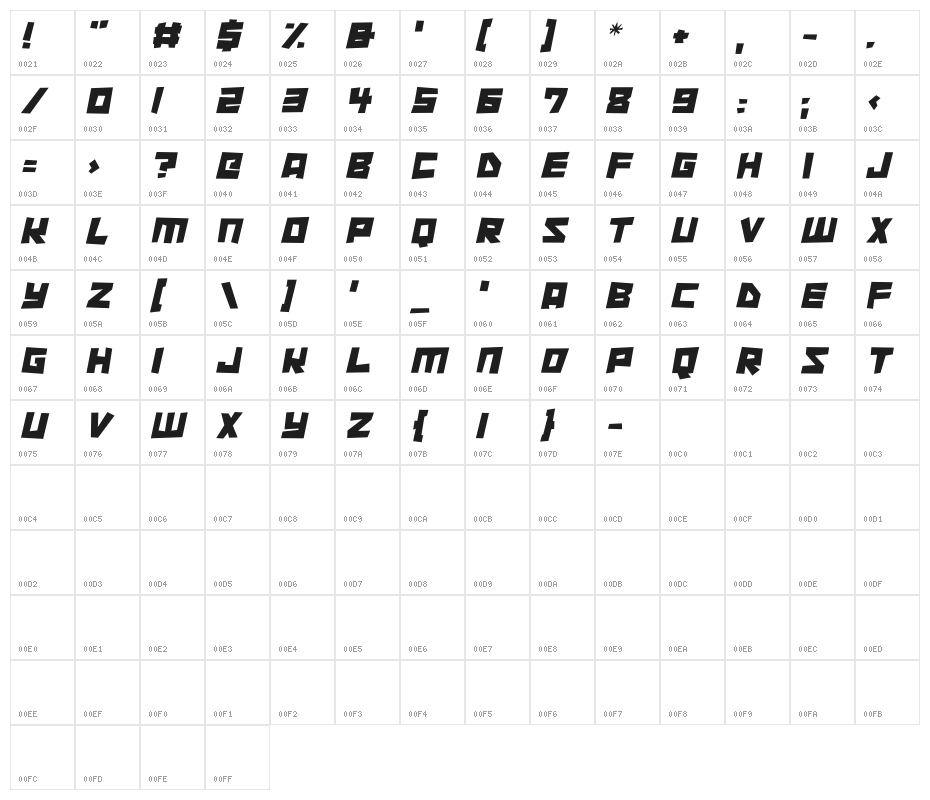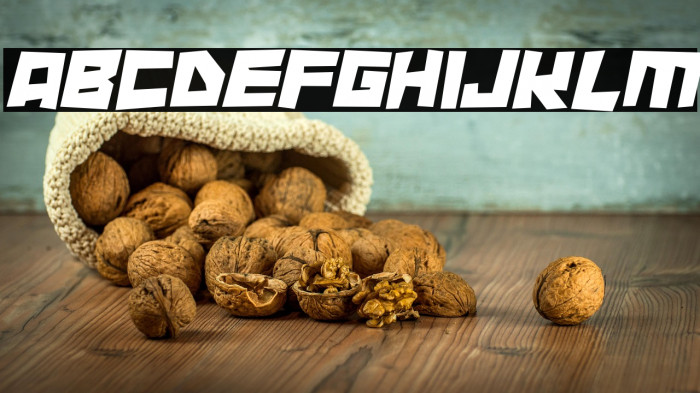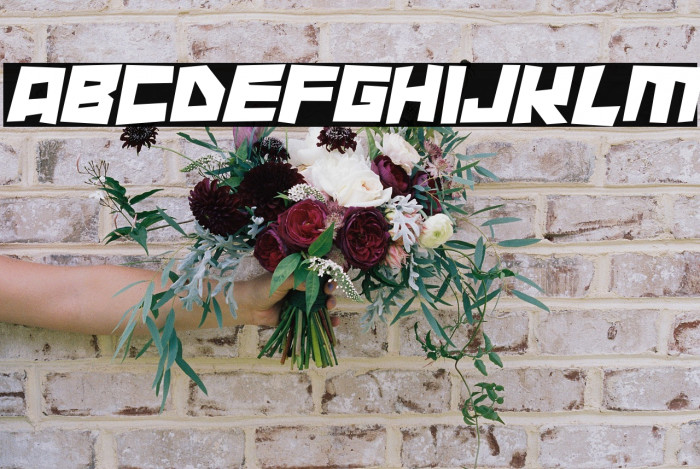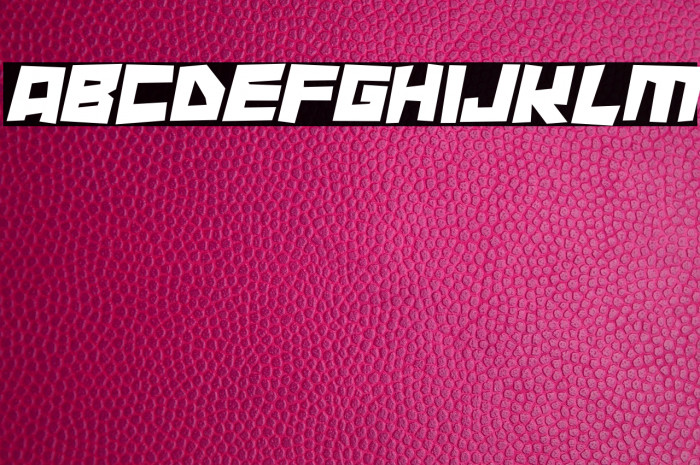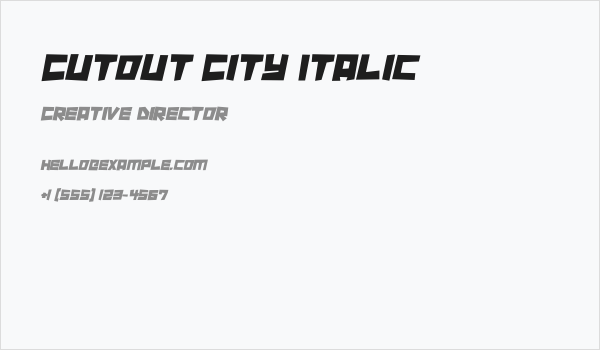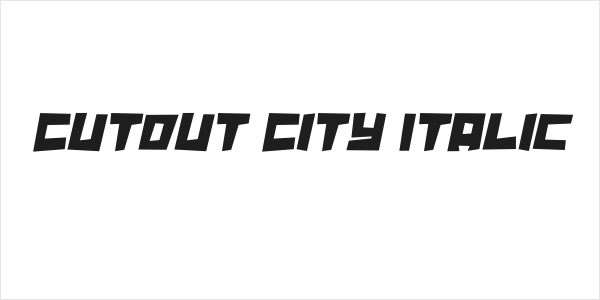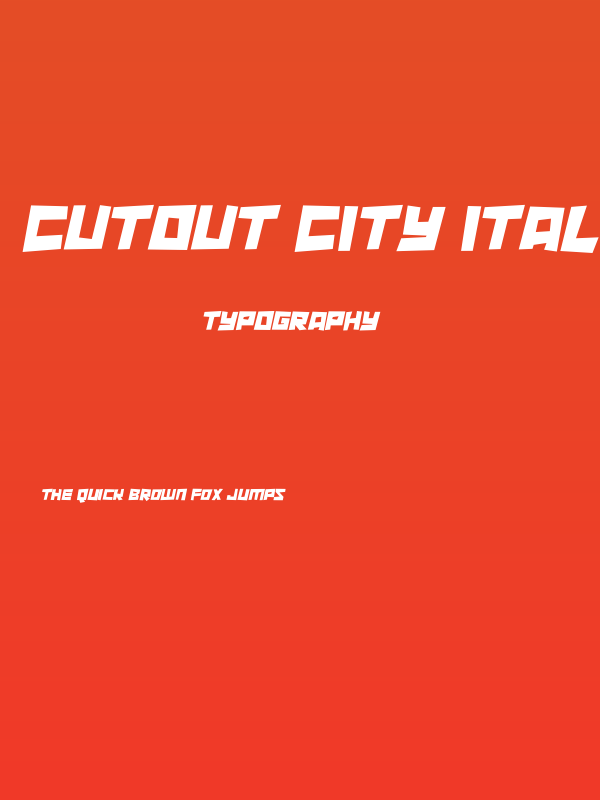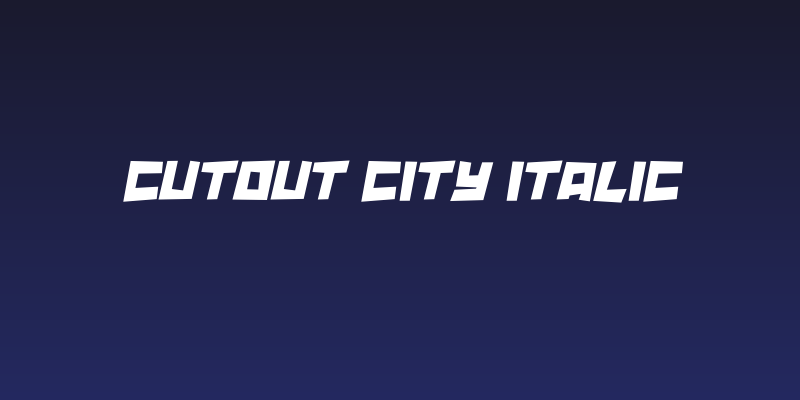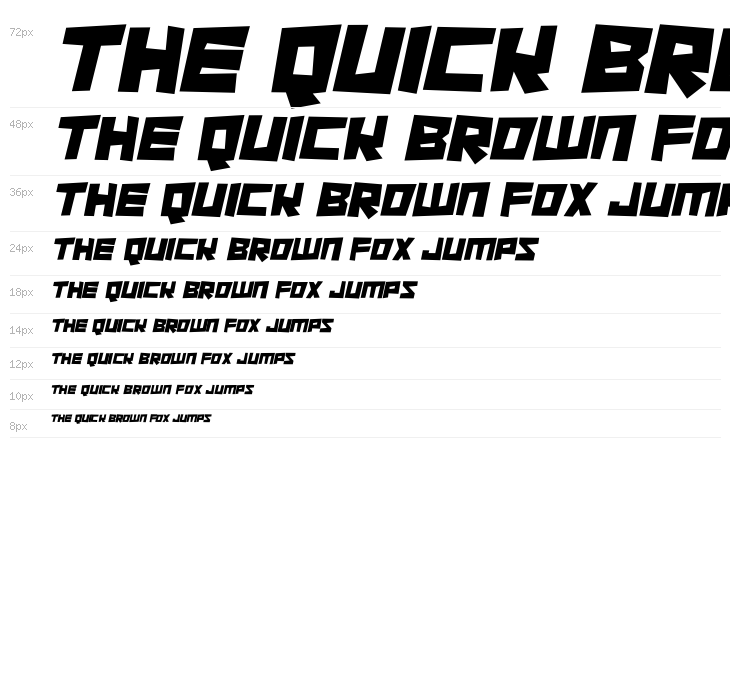
Cutout City Italic Font
Cutout City Italic Description
This font features a bold, angular design with a distinctly modern and edgy aesthetic. The characters are sharply cut, creating a dynamic and energetic appearance. The italic slant adds a sense of movement and urgency, making it ideal for attention-grabbing headlines or branding that requires a strong visual impact. The uppercase and lowercase letters maintain a consistent style, with each character exhibiting unique geometric cuts and angles. The numbers and special characters follow the same design principles, ensuring a cohesive look across all text elements. This font's boldness and unique style make it stand out in any design project.
| Proposed Projects | Ideal for branding, posters, headlines, and any project needing a strong, modern visual impact. |